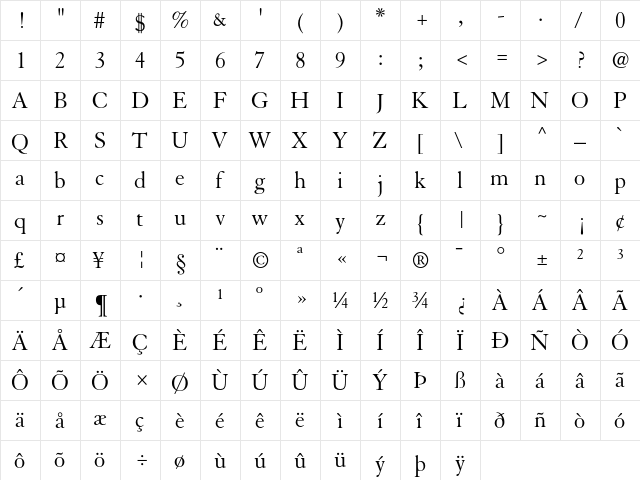
Granjon Roman
Design Context for Granjon Typeface
Granjon takes a measured approach to typography — its balanced proportions and neutral character make it a reliable workhorse for both digital and print work.
Pro Tip: Use Granjon in both headline and body roles to test its range before committing to a single application.